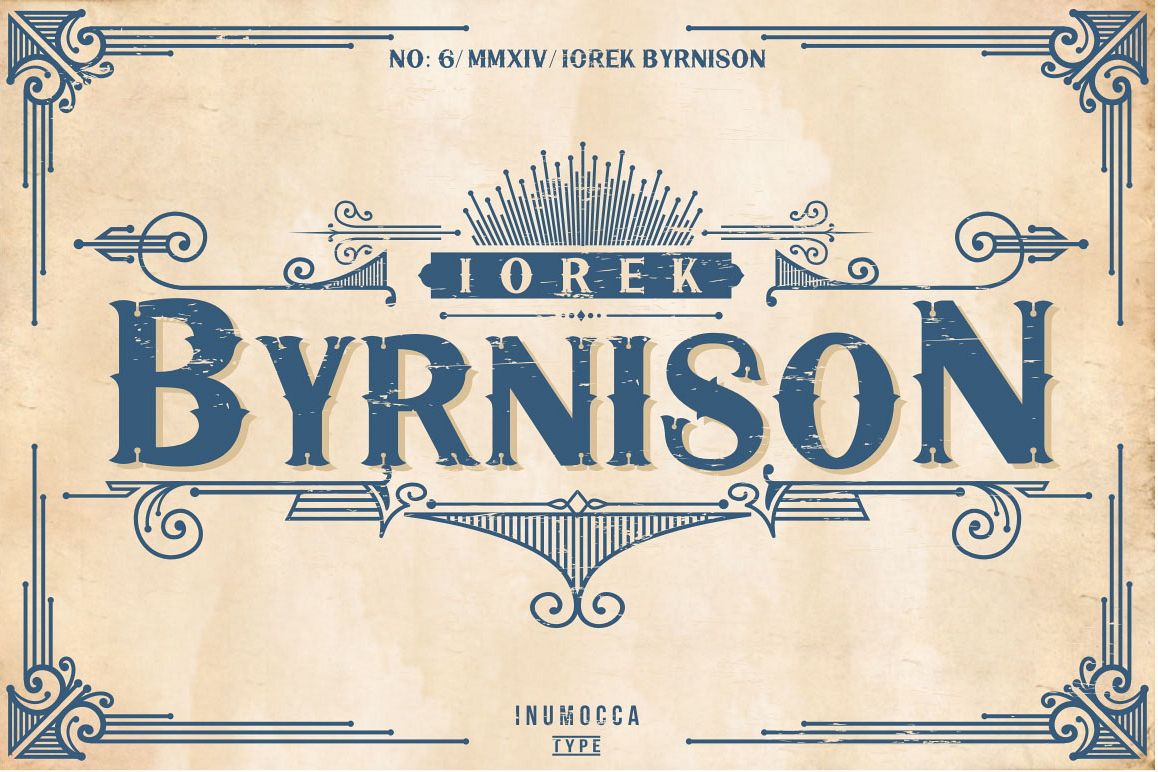
Iorek Byrnison (free POSTER vector)
Iorek Byrnison ornate
Iorek Byrnison
Iorek Byrnison inspired from The Golden Compass film,
i realy like of Iorek Byrnison character,more power and soul,
its really great font for your band, company, label,
clothing company, vintage or classic stuff, etc
Available : UPPERCASE Basic & ornate
LowerCase
Numeric,
Symbol,
Punctuation characters